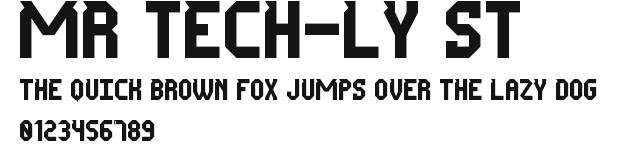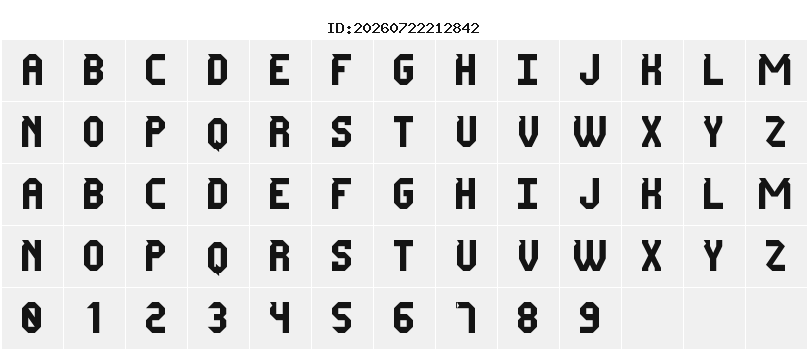
• Font Name: Mr Tech-Ly St
• Designer: This font is an original work of southype dot com
• Manufacturer: www.southype.com
About Mr Tech-Ly St.ttf
Mr Tech-Ly St.ttf is a modern, elegant sans-serif font designed for ultimate readability and visual harmony. Perfect for branding, headlines, web design, and print materials.